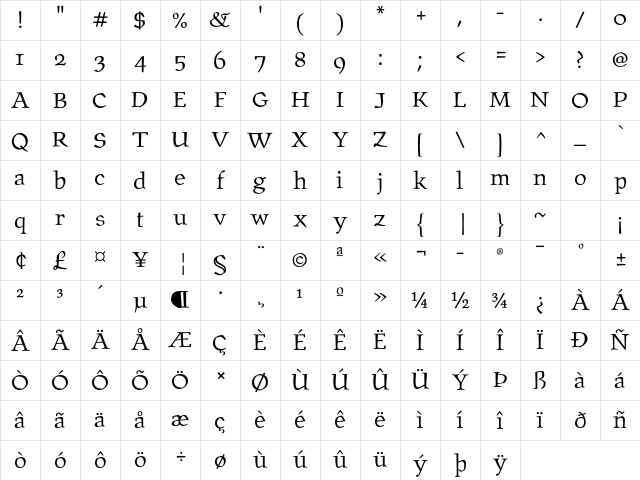
Oldrichium ITC Std is a composed and adaptable typeface that performs quietly and consistently across a wide range of design contexts. Its slender proportions lend an understated elegance to any composition.